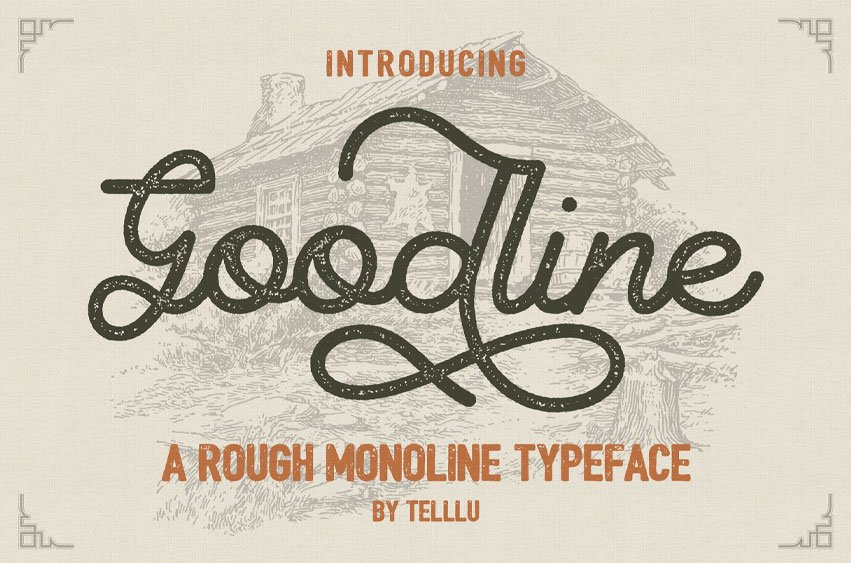
Goodline Rough Font is a textured version of our last Goodline font. A monoline font with many alternative characters and ligatures. Combined with some swashes so you can play and create something awesome. Very suitable to use on your logotype project, poster, tshirt, branding, greeting cards, badges, ect. It also support multilingual characters.